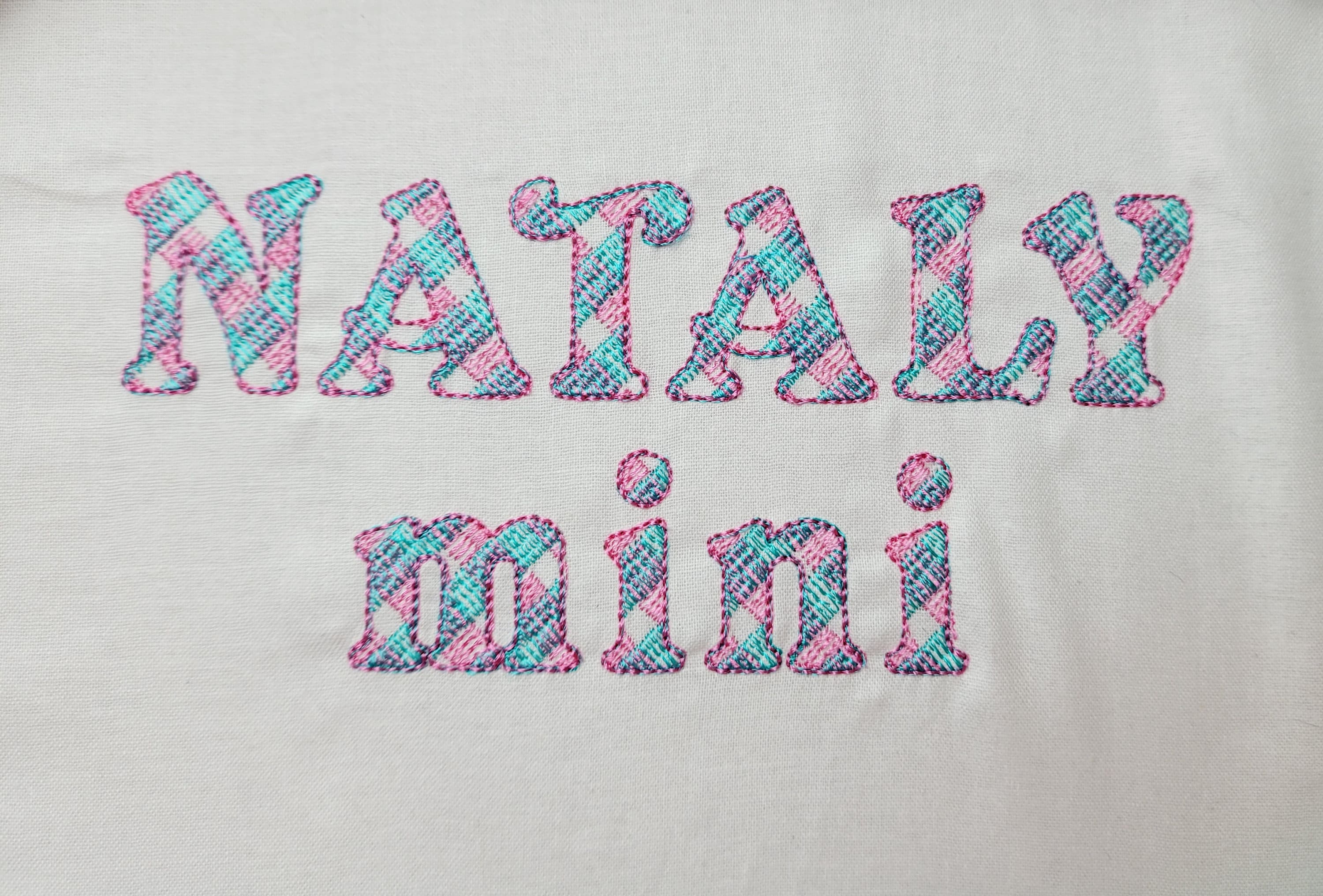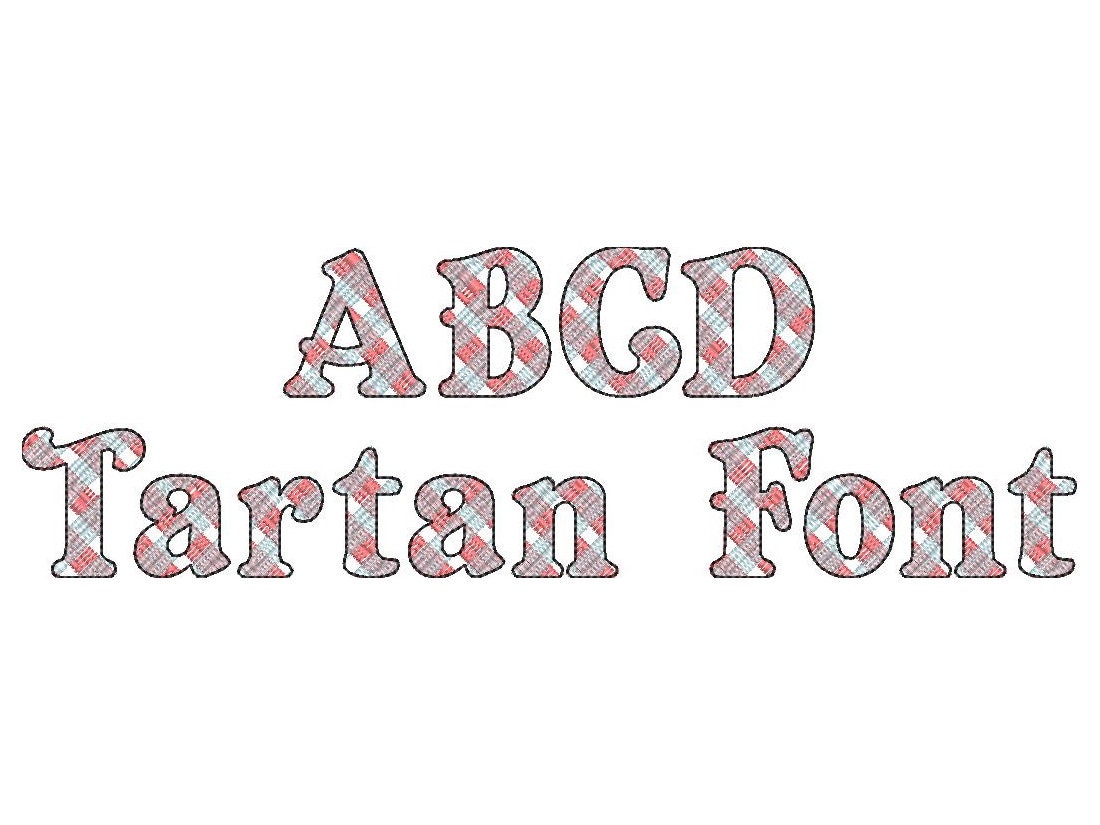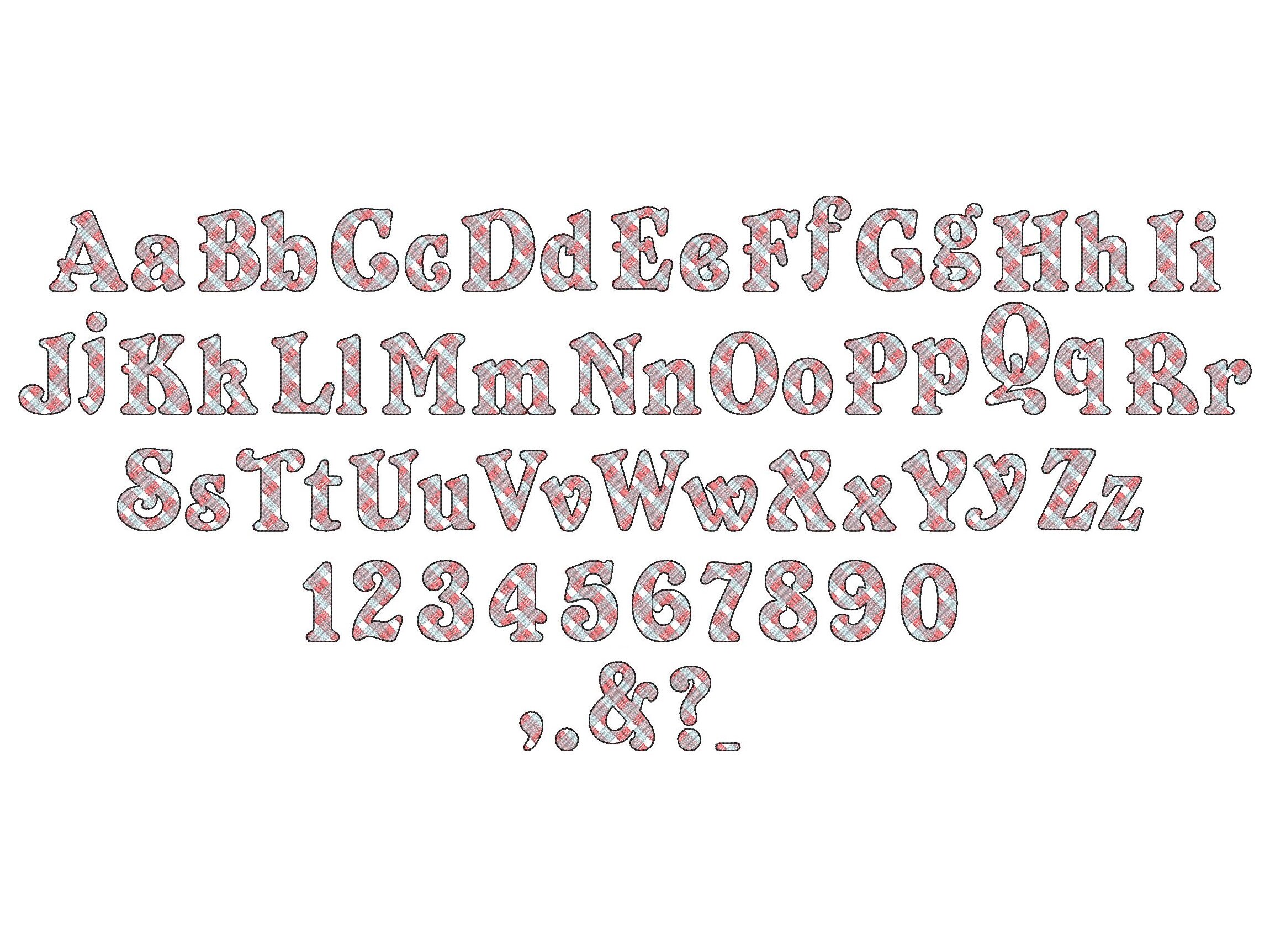
Old Fashioned Tartan Font plaid gingham buffalo light sketch outline alphabet letters machine embroidery designs small mini sizes BX included
This is a quick stitch design, looks like laces, the background fabric looks through. Stunning effect.
Gingham lines are part of the embroidery.
Uppercase and lowercase letters, numbers and punctuation & . , - ? !